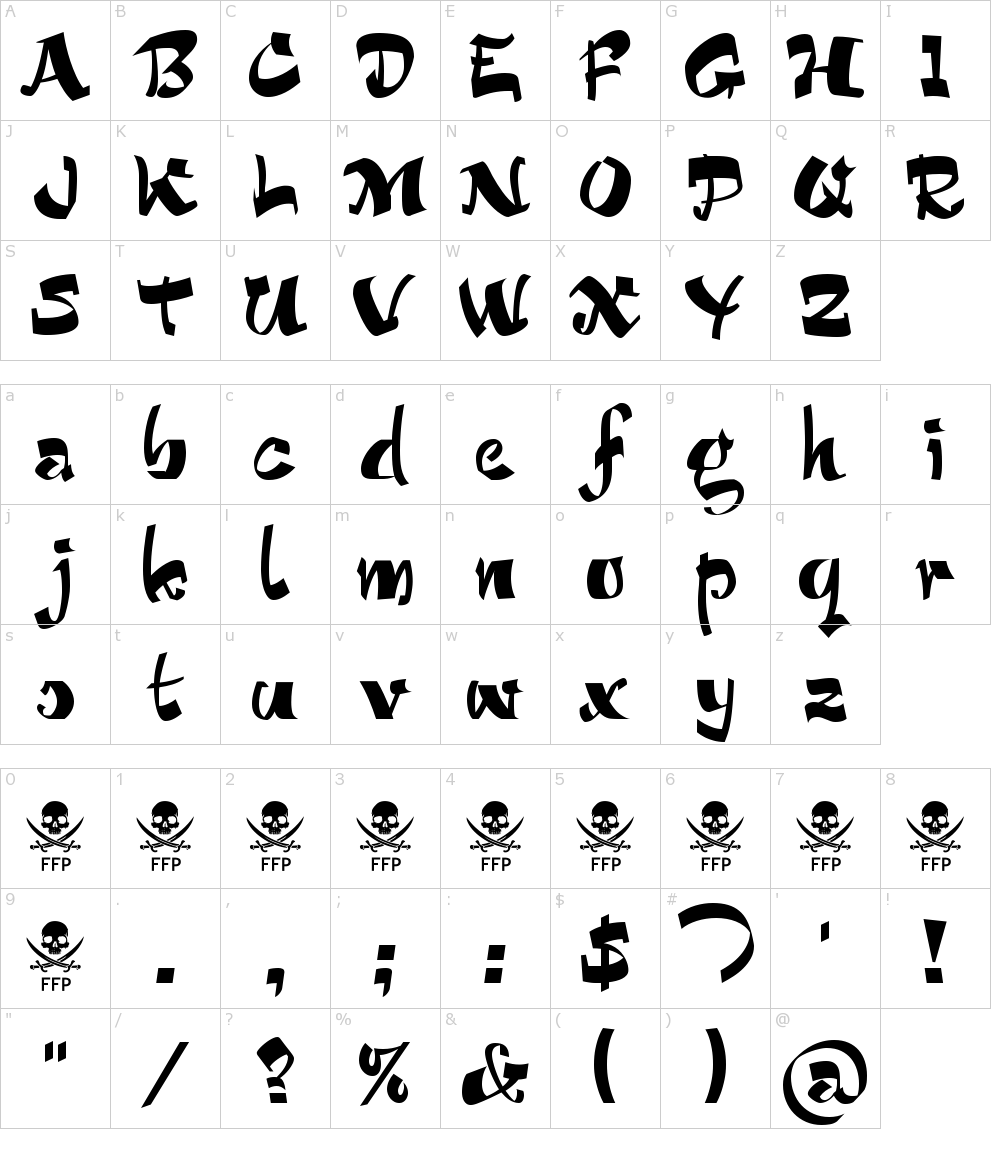
bucanera
Explore the Unique Design of Bucanera Font
Bucanera Font, crafted by renowned designer Alex Martinez in 2022, is a remarkable decorative typeface that infuses whimsy and character into every design. Ideal for artistic projects, this font shines in applications like branding, posters, and magazine layouts, where creativity is key.
Key Features and Available Formats of Bucanera Font
The Inspiration Behind Bucanera Font
Bucanera was inspired by the vibrant pirate culture and maritime aesthetics, reflecting a sense of adventure and creativity. Alex Martinez’s vision was to create a typeface that would evoke excitement, making it perfect for creative agencies, event promotions, and artistic branding.
Ideal Uses for Bucanera Font
Bucanera Font is perfect for use in eye-catching headlines, creative logos, event invitations, and artistic merchandise. Its distinctive style sets it apart, making it ideal for any project that seeks to capture attention and convey personality.